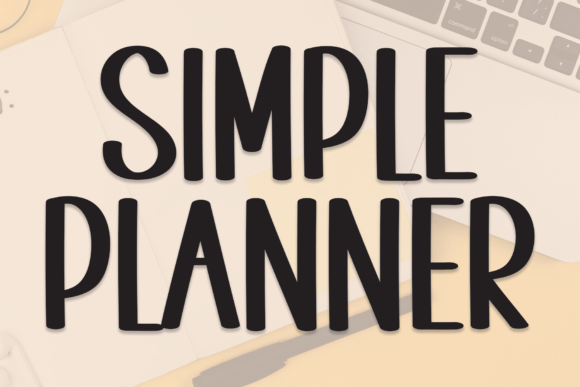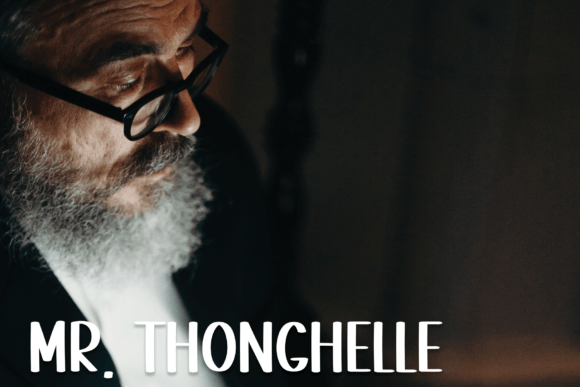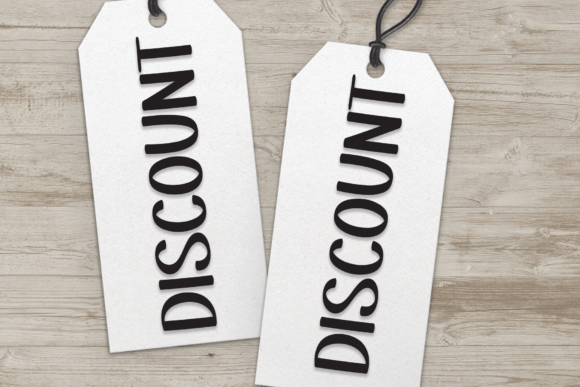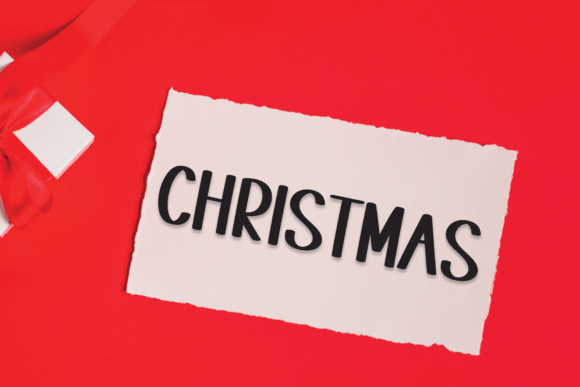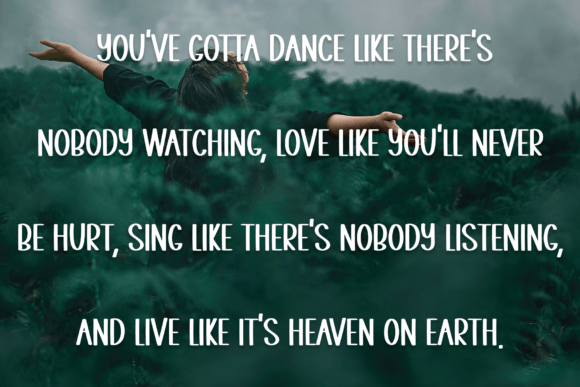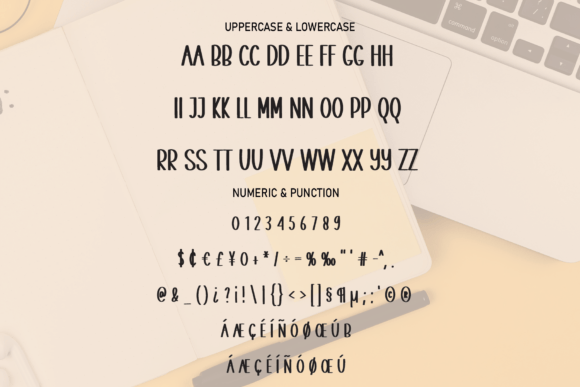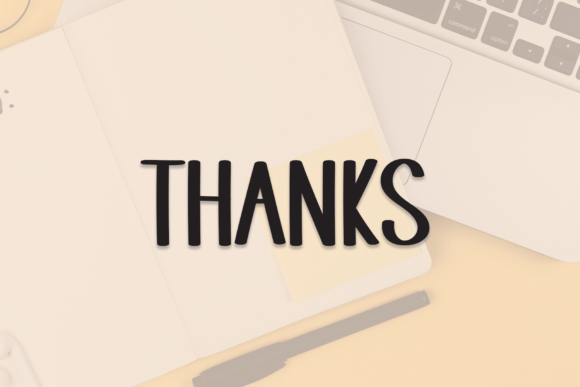
Simple Planner
Simple Planner Font: Playful Handwritten Style for Fun Designs
Say hello to Simple Planner – the font that keeps creativity light and breezy! With its carefree baseline and organic strokes, this handwritten wonder brings effortless charm to projects that need a dose of happy spontaneity.
Why Simple Planner Wins Hearts
• Happy Imperfections: Intentional wobbles for authentic vibe
• Super Flexible: Works from social posts to printables
• Quick-Read Magic: Clear even in fast-scrolling feeds
Where It Shines Brightest
Digital Playground
Perfect for:
• Instagram story overlays
• Blog post featured images
• Email header graphics
Print & Craft Fun
Loves being:
• Bullet journal headers
• DIY recipe cards
• Classroom printables